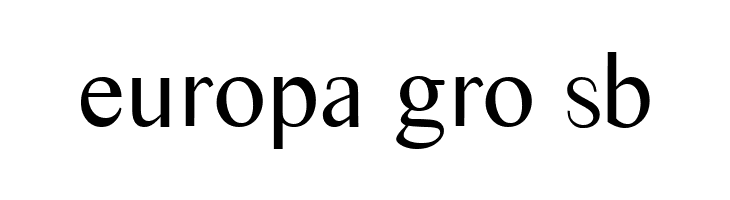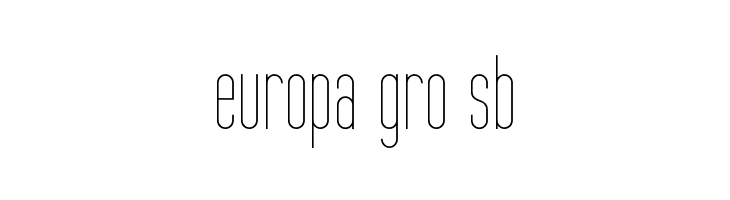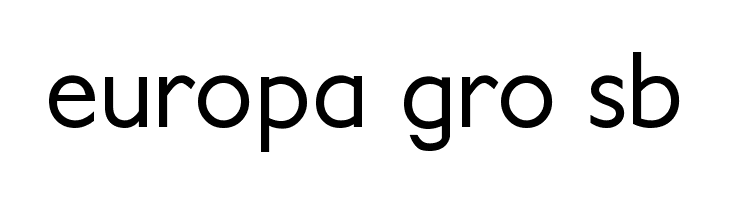
A tall, narrow, and modern font with thin, consistent strokes.
A modern, geometric sans-serif font with uniform stroke width and balanced proportions.
A clean and modern sans-serif font with balanced proportions and clear readability.
A clean, modern sans-serif typeface with balanced proportions and consistent stroke widths.
A modern sans-serif font with clean lines and balanced proportions.
A modern, geometric sans-serif font with clean lines and balanced proportions.